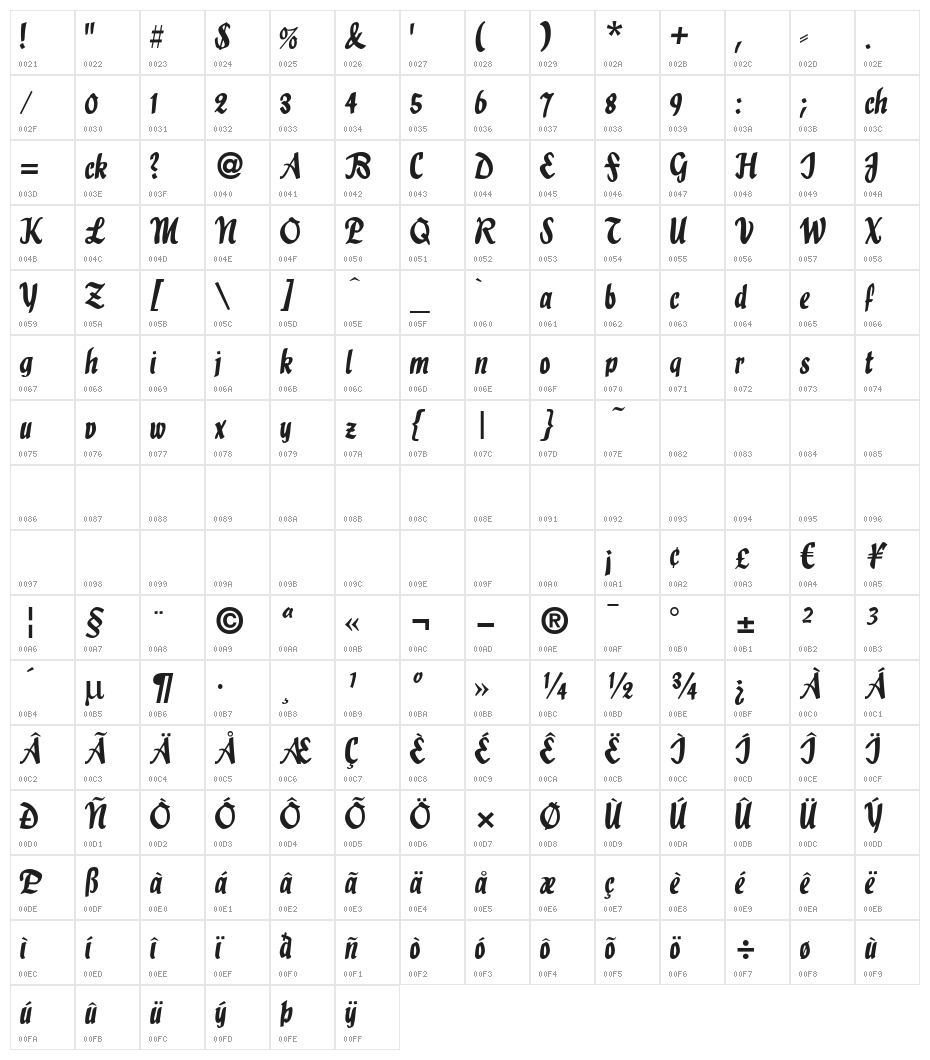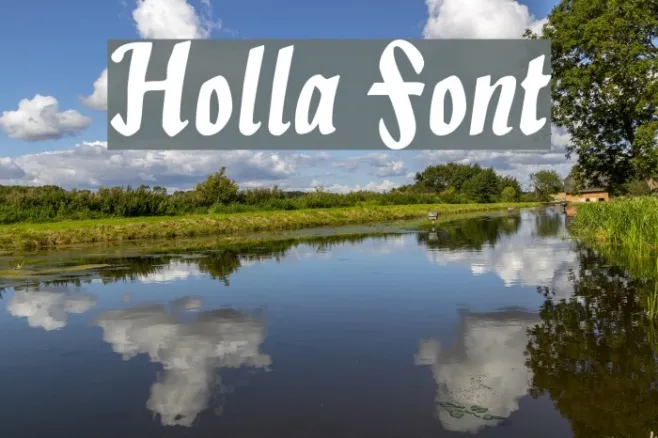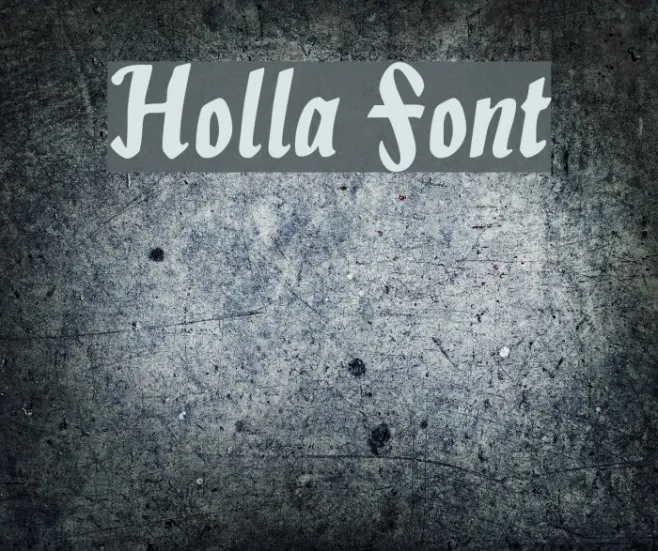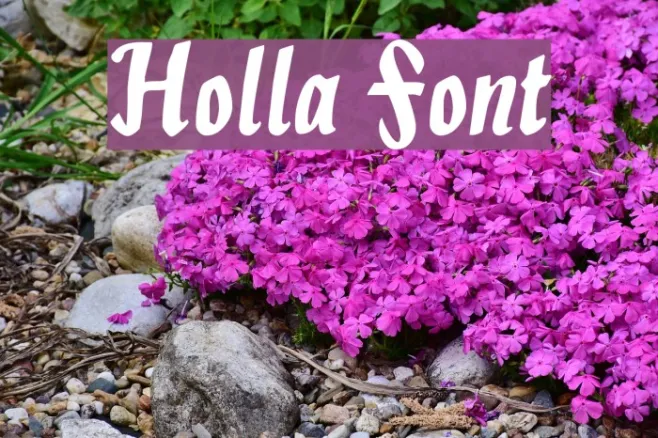
Holla Font
Holla Description
This font features a bold and dynamic script style, characterized by its flowing, cursive letterforms that convey a sense of elegance and movement. The uppercase letters are particularly striking, with exaggerated curves and flourishes that give them a dramatic appearance. The lowercase letters maintain a consistent style, with smooth connections between characters that enhance readability. The numerals are equally stylized, matching the overall aesthetic of the alphabet. Special characters are designed with the same attention to detail, ensuring a cohesive look across all glyphs. This font is ideal for projects that require a touch of sophistication and flair.
| Proposed Projects | Ideal for wedding invitations, branding, logos, and elegant packaging designs. |